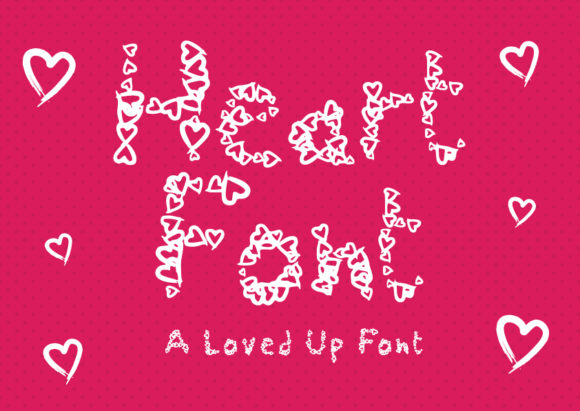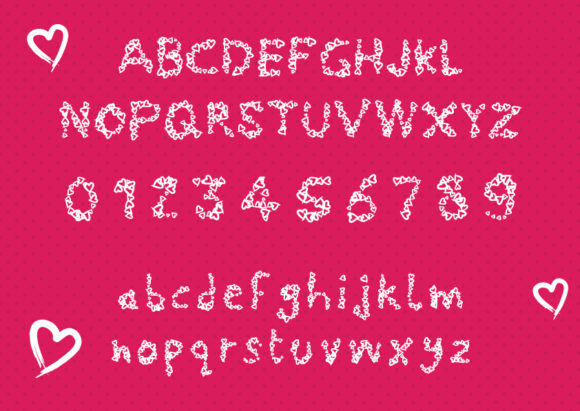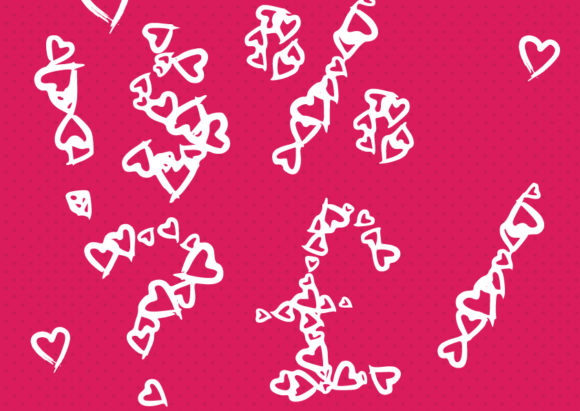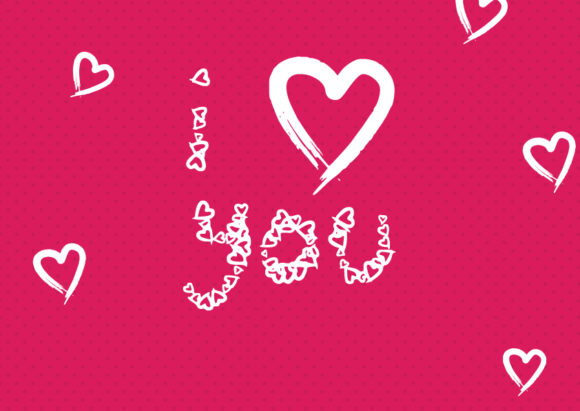
Heart Font
About Heart Font
Heart is an incredibly unique, lovely and cute dingbats font. Get creative with its childlike playfulness, and use it to brighten up any kids or school project!